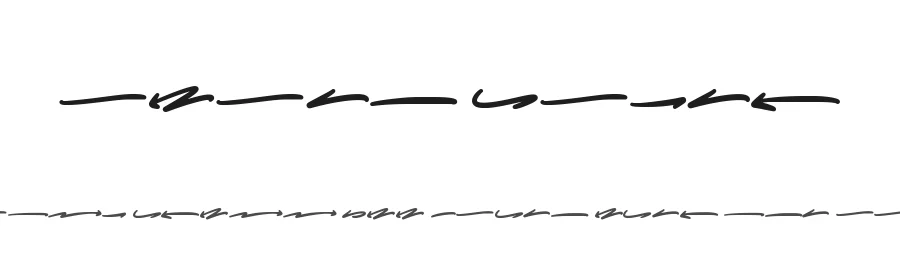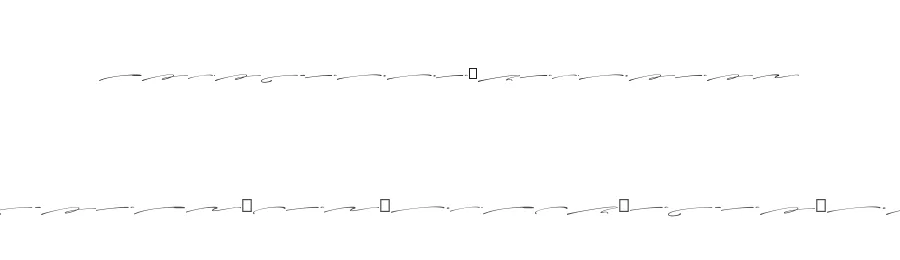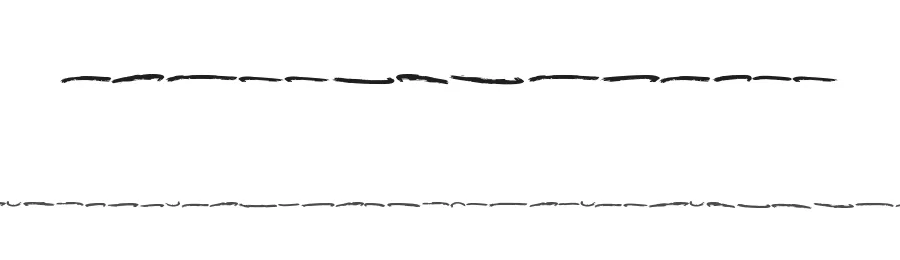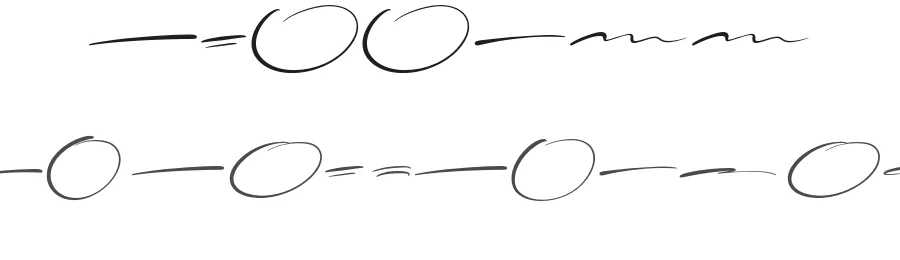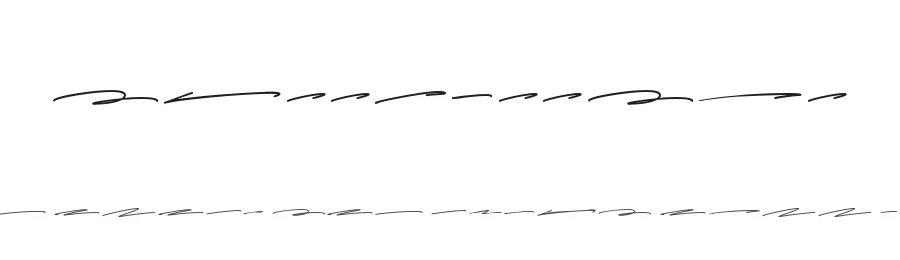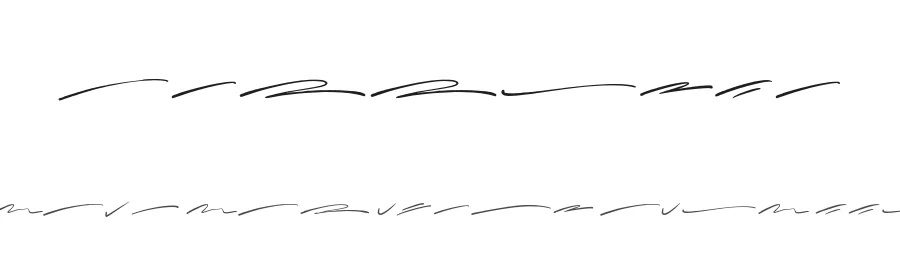
About Betterlett Font
Betterlett is a classy handwritten font, designed to make it easy to create professional signature logos.
Betterlett Specifications
Betterlett ships with 5 OpenType features you can switch on in apps that support them (Illustrator, InDesign, Affinity, Figma, CSS font-feature-settings).
- Stylistic sets (5)
Betterlett Font is a script font that shines as a display or heading face. Pair it with a clean sans-serif or serif font for body text β the contrast creates a clear hierarchy while the two styles stay balanced and easy to read.
Betterlett Font